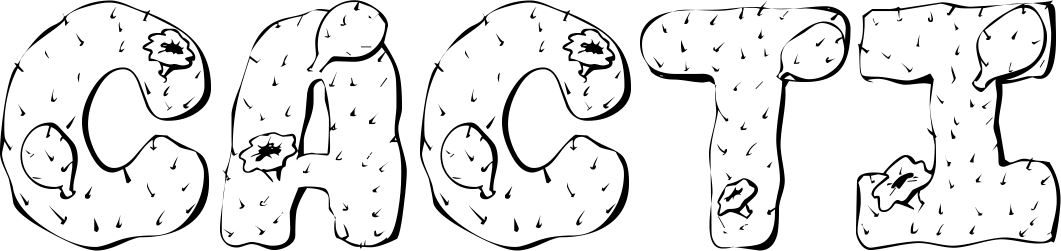
101! Cacti Font
Are you ready to give a whole different look to your artwork with an obvious tinge of playfulness and creativity? Then we’re glad to present the Cacti font to you!
Offering a floral but prickly style, this cactus font makes a perfect fit for a variety of your design projects. Considering that Cacti is an all-caps font, you’ll find it suitable for injecting comic and Western vibes into your poster artwork, children’s illustrated books, cartoons, and more.